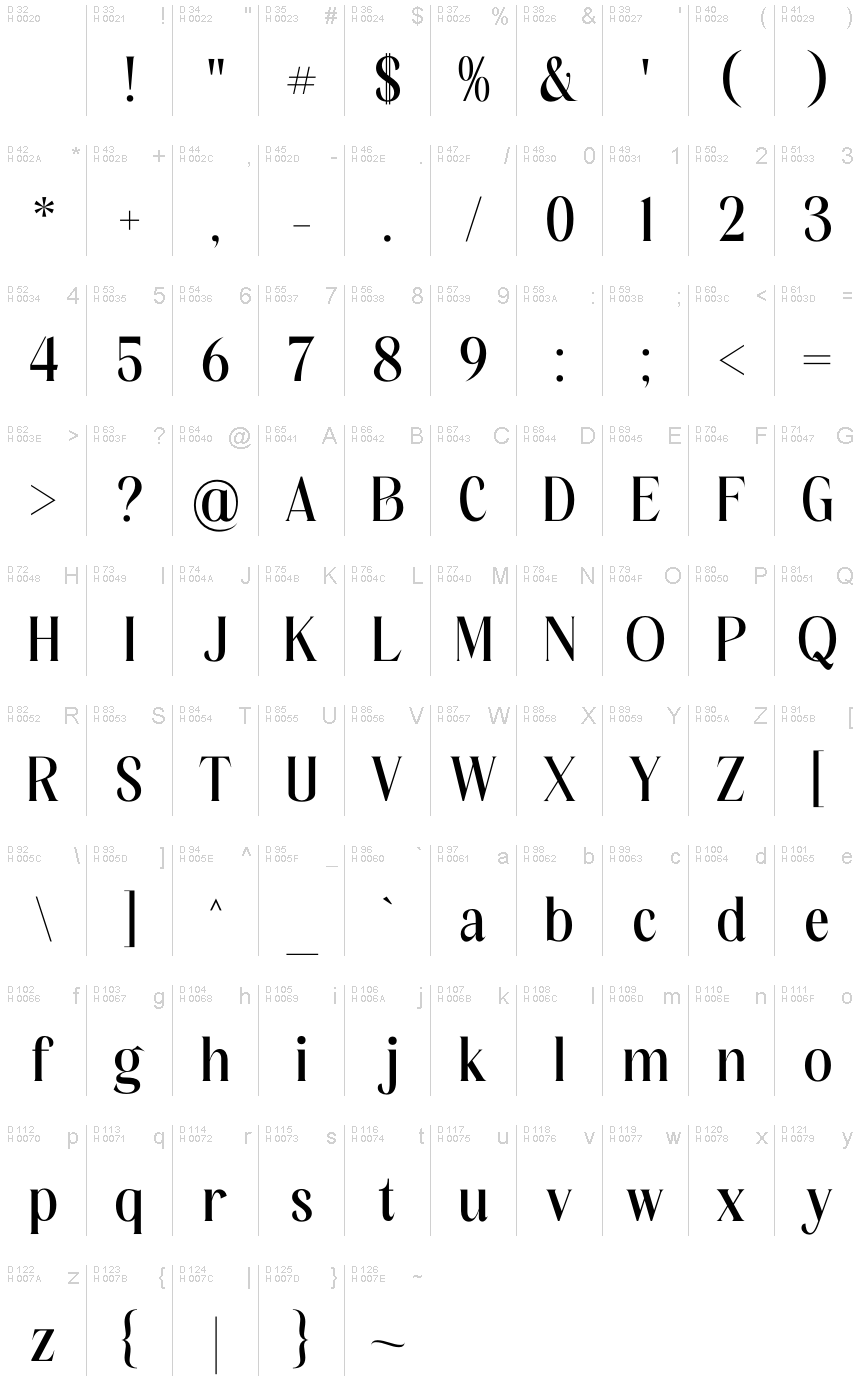
Black Runters
Black Runters, a captivating serif font created by Storytype Studio, exudes a timeless elegance and a touch of sophistication. With its refined serifs and balanced proportions, this typeface seamlessly blends traditional typographic elements with a modern flair. The clean lines and subtle flourishes in the letterforms lend an air of sophistication, making Black Runters a versatile choice for a wide range of design applications.
Storytype Studio's Black Runters font is well-suited for projects that require a sophisticated, yet approachable aesthetic. Its legibility and refined appearance make it an excellent choice for editorial designs, book covers, high-end branding, and even formal correspondence. The font's versatility allows it to transition effortlessly between formal and casual settings, making it a valuable asset in the designer's toolkit.